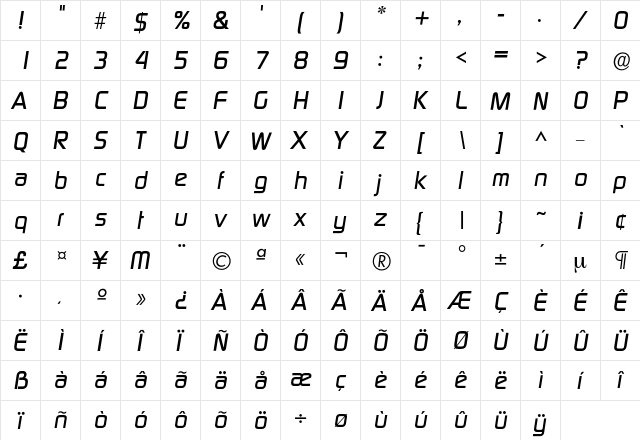
Idigital-Medium Regular
Idigital-Medium channels digital-age aesthetics through its sharp, structured letterforms — ideal for brands that want to signal innovation.
Pro Tip: Use Idigital-Medium in combination with a neutral sans for body text. Let it define the brand voice in headlines while keeping reading comfortable elsewhere.